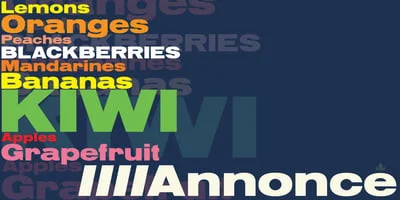
Annonce Font
Annonce Font is perfect for advertising campaigns, promotional materials, newspaper headlines, marketing brochures, announcement banners, commercial signage, retail displays, press releases, and any project requiring bold, attention-grabbing typography with classic advertising appeal.
What makes Annonce Font exciting is its powerful advertising heritage that captures the essence of classic promotional typography with commanding presence and immediate impact. This distinctive typeface embodies the golden age of advertising design with bold, condensed letterforms that demand attention and convey urgency. The font's authoritative character and commercial appeal make it perfect for messages that need to cut through visual noise and create instant recognition in competitive markets.
The Annonce Font family includes regular and bold weights, featuring complete uppercase and lowercase alphabets, numerals, punctuation marks, and essential commercial symbols. The font maintains consistent impact and readability throughout all characters while ensuring optimal performance for both large-scale displays and smaller advertising applications.
Whether you're creating high-impact advertising campaigns, designing promotional materials, or developing commercial branding with vintage advertising aesthetics, Annonce Font delivers unmatched commercial appeal and visual authority. This powerful typeface transforms ordinary announcements into compelling marketing statements that capture attention and drive action. The font's proven advertising pedigree makes it ideal for retail environments, promotional campaigns, and any application where immediate visual impact is essential. Download this exceptional font today and bring classic advertising power to your commercial design projects with guaranteed attention-grabbing results.